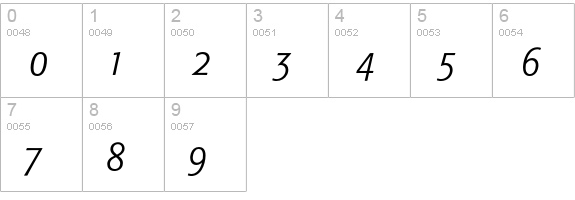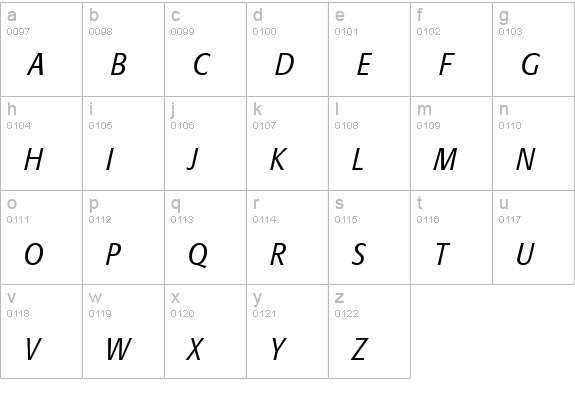
Formata ConExpert BQ Light Italic Font Details
Formata ConExpert BQ Light Italic is a refined, elegant, italic variant in the Formata typeface family \xE2\x80\x94 well suited to elegant body text, refined sub-headings, and luxury branding.
The Formata ConExpert BQ Light Italic font is a stylish and elegant typeface that exudes sophistication and modernity. Its sleek and slender design makes it perfect for adding a touch of sophistication to any project or design. The italic style adds a sense of flair and creativity to your text, making it stand out with a unique touch. This font is not only visually appealing but also highly versatile, suitable for a wide range of design projects including branding, advertising, packaging, and more. Its clean lines and subtle curves create a harmonious balance that is both pleasing to the eye and easy to read. The best part is that the Formata ConExpert BQ Light Italic font is available for free download at FontsMarket.com. This means you can easily access and use this beautiful font in your projects without any cost. Don't miss out on the opportunity to enhance your designs with this stunning typeface today!